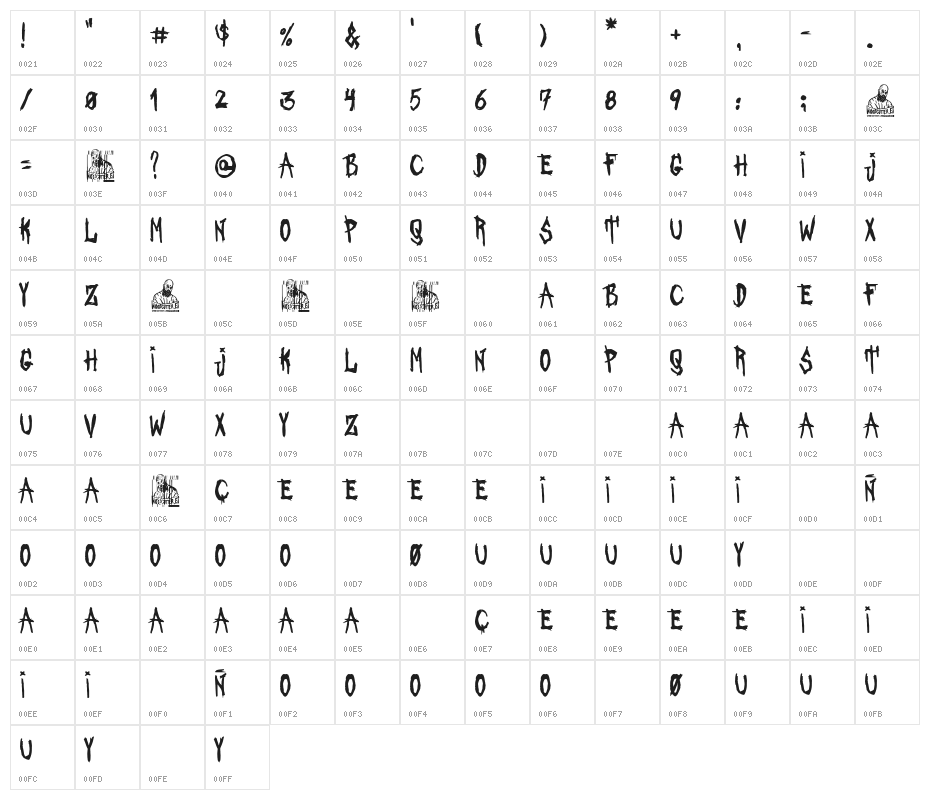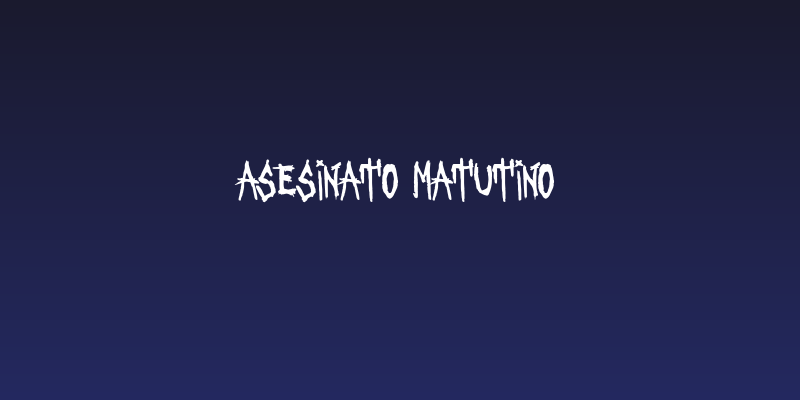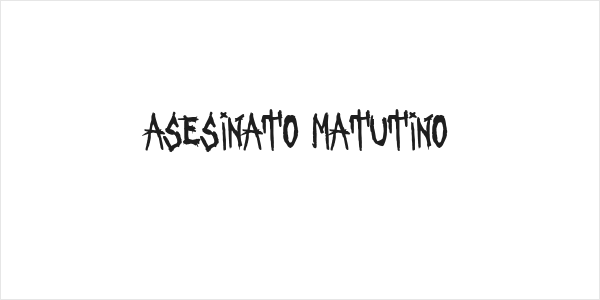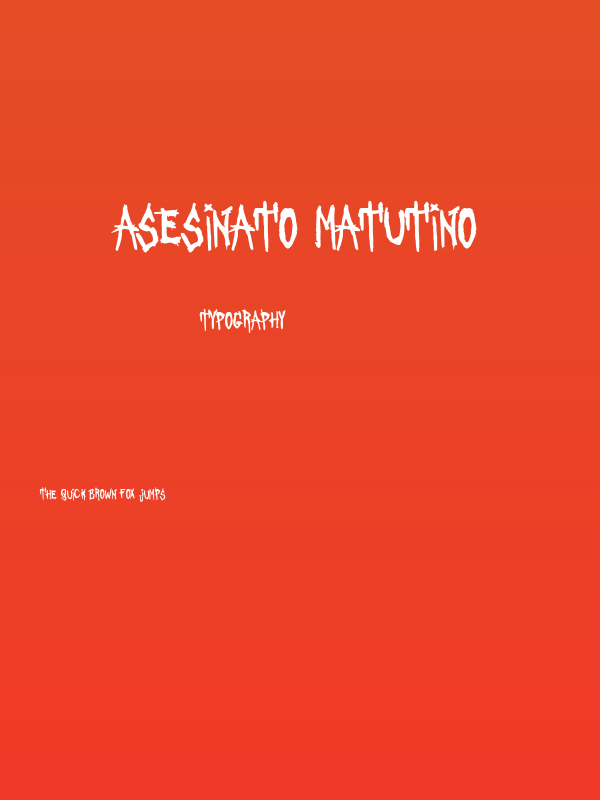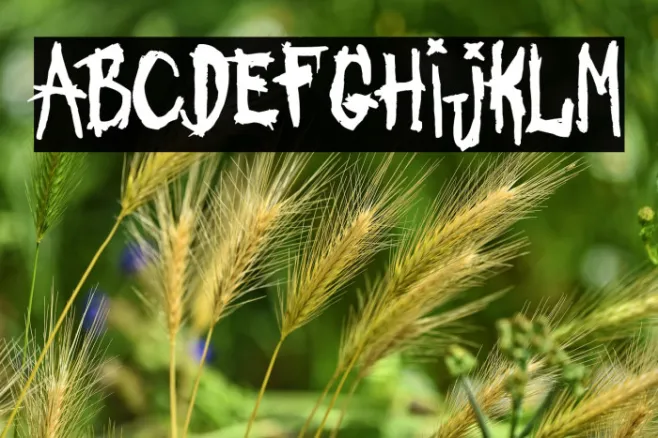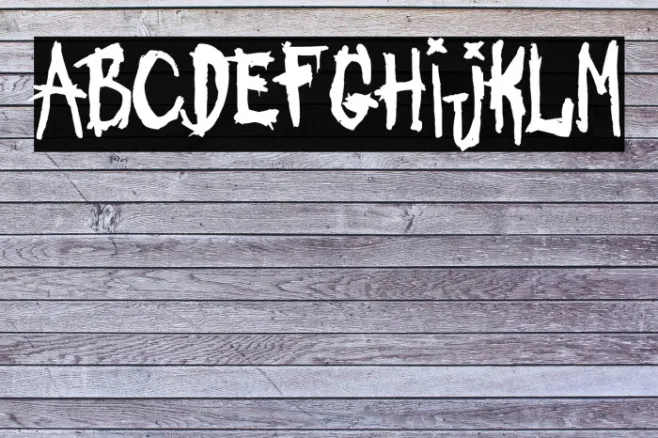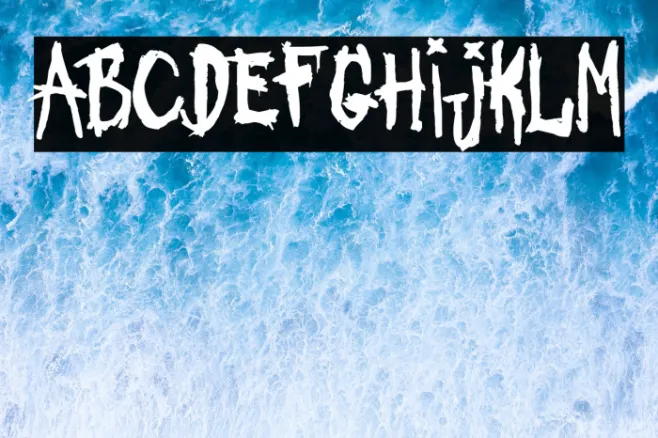
Asesinato Matutino Font
Asesinato Matutino Description
This font exudes a raw, edgy aesthetic with its jagged and uneven strokes, reminiscent of hand-drawn graffiti or brush lettering. The uppercase and lowercase letters maintain a consistent, rugged style, with each character appearing unique yet cohesive within the set. The numbers and special characters follow the same design principles, adding to the font's overall chaotic yet artistic vibe. The irregularity in line thickness and the rough edges give it a dynamic and energetic feel, making it stand out in any design. This font is perfect for projects that require a bold, rebellious touch, such as posters, album covers, or urban-themed graphics.
| Proposed Projects | Ideal for posters, album covers, urban-themed graphics, and rebellious design projects. |